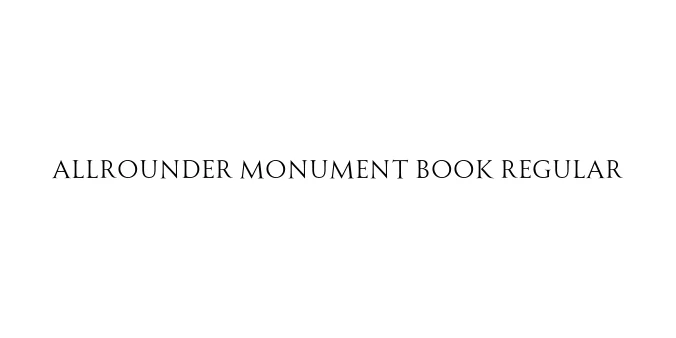
Allrounder Monument Book Regular
Designed by Moritz Kleinsorge
Allrounder Monument Book Regular is a sophisticated serif typeface designed by Moritz Kleinsorge as part of the extensive Allrounder superfamily. This font draws heavy inspiration from the classical Roman inscriptions found on the Trajan Column in Rome, translating those timeless proportions into a versatile tool for contemporary typography. It strikes a delicate balance between the monumental authority of stone-carved letters and the functional requirements of modern text setting.
Released through Identity Letters, the Book weight is specifically optimized for long-form reading and elegant editorial layouts. Its refined serifs and balanced contrast make it an exceptional choice for designers seeking a typeface that conveys heritage and reliability without feeling dated. Whether used in high-end branding or academic publishing, Allrounder Monument provides a professional aesthetic that is both legible and visually striking.
Allrounder Monument Book Regular Best Uses
Perfect for magazines and high-end book layout design.
Ideal for creating a sense of heritage and authority in logos.
Excellent for official documents and professional stationery.
Adds a touch of elegance to headlines and long-form articles.